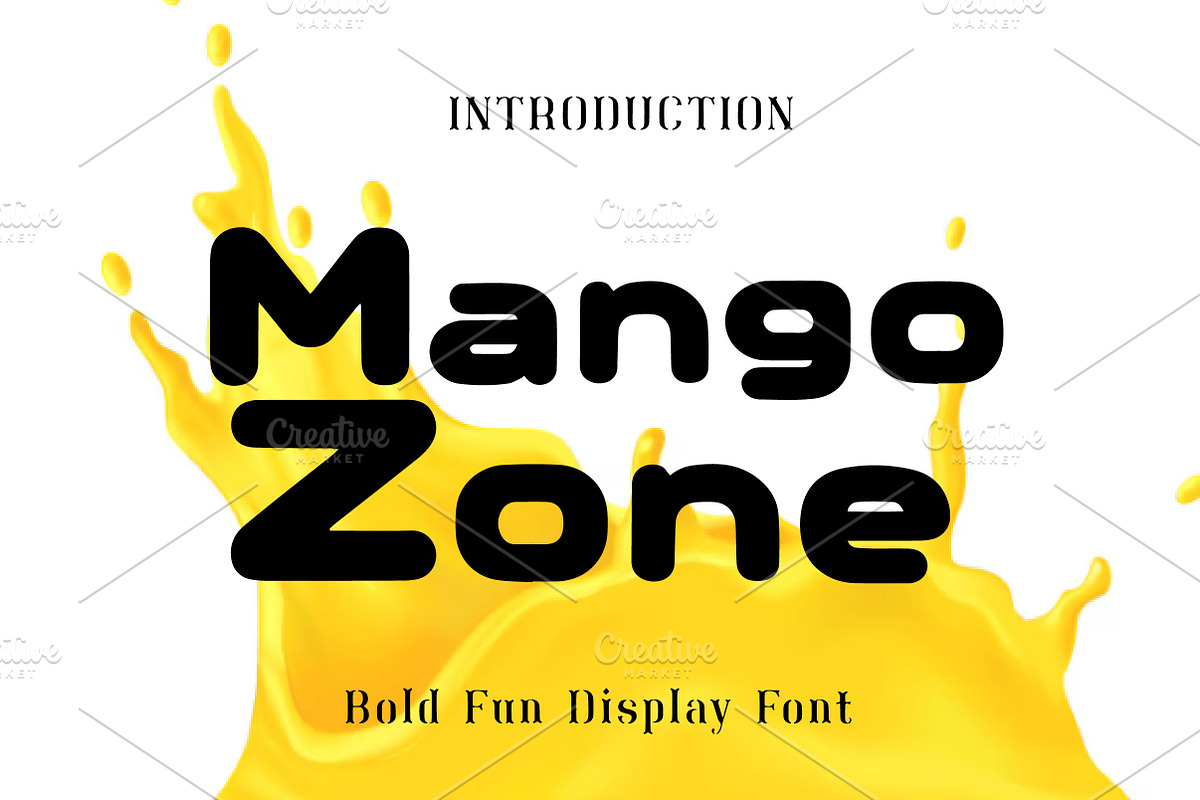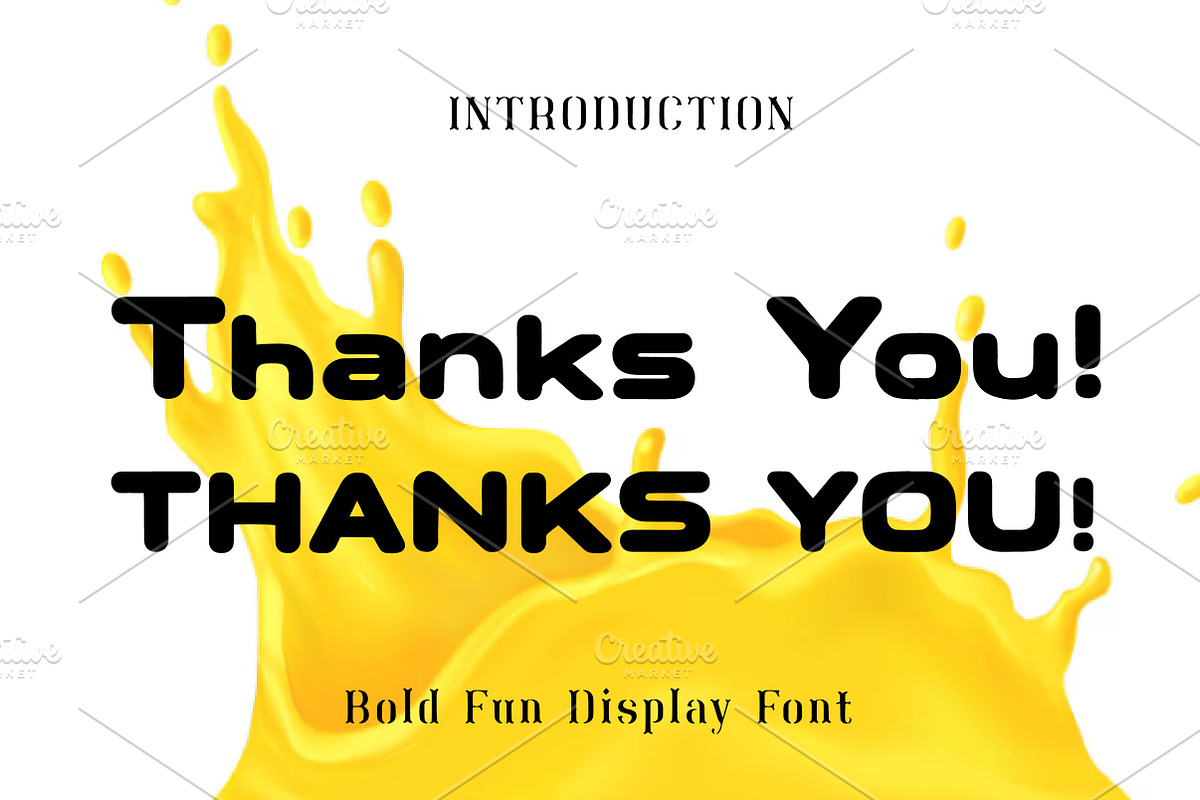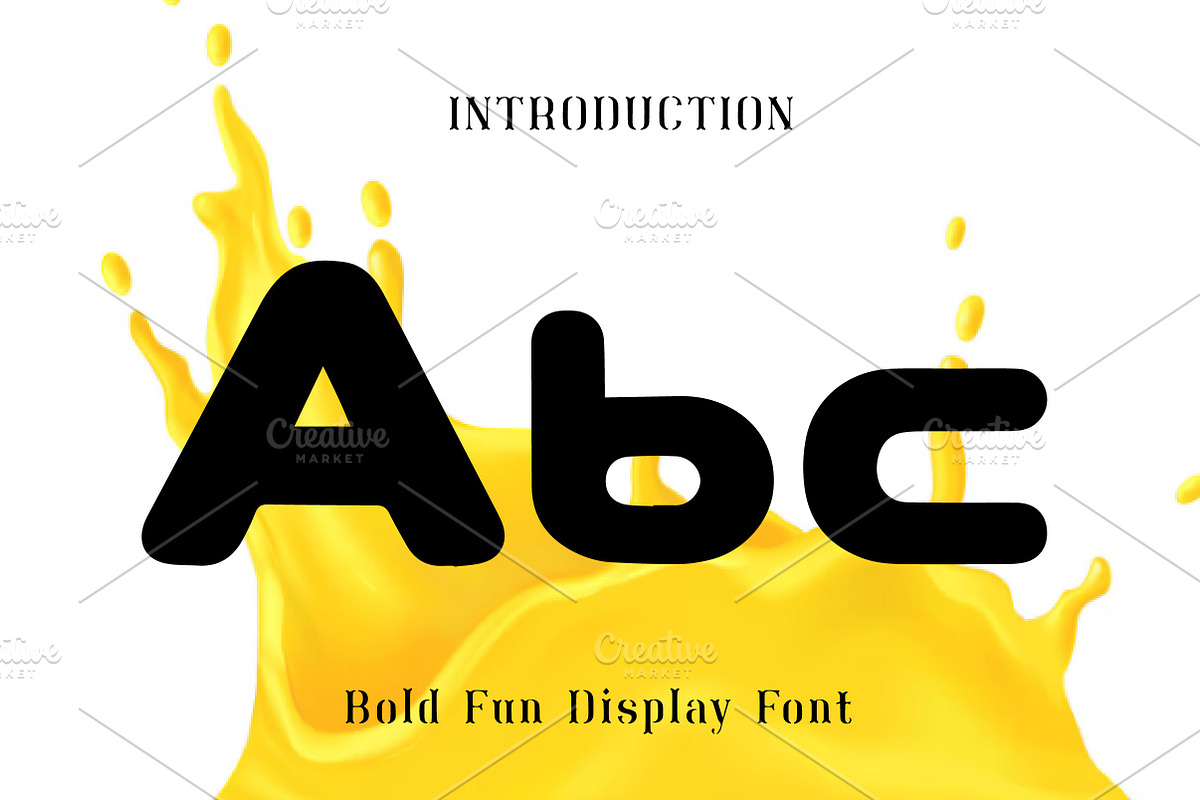
Mango Zone
Mango Zone – Bold Fun Display Font
Mango Zone is a bold and playful display font with a fun, cheerful, and energetic personality. Its thick rounded letterforms create a strong and friendly visual style that instantly makes any design look lively, modern, and eye-catching.
With its chunky and smooth appearance, Mango Zone is perfect for kids’ designs, snack packaging, posters, branding, logos, social media graphics, t-shirt designs, stickers, and fun marketing materials. It brings a joyful and approachable look that works beautifully for playful and creative projects.
This font is a great choice for designers and creators who want a typeface that feels bold, cute, and full of character. Whether you are creating branding for a fun product or designing colorful promotional content, Mango Zone adds a vibrant and memorable touch to every layout.
Kids’ designs
Snack and food packaging
Bold logos
Posters and headlines
T-shirt designs
Stickers and labels
Fun branding
Playful marketing materials
Bold and playful display style
Thick rounded letterforms
Fun, friendly, and eye-catching look
Perfect for branding and packaging
Great for both print and digital projects
Mango Zone is a bold and playful display font with a fun and friendly style. Perfect for kids’ designs, packaging, logos, posters, social media graphics, and branding, it adds a cheerful and eye-catching touch to any project.